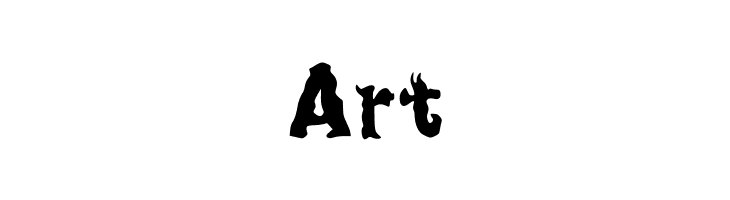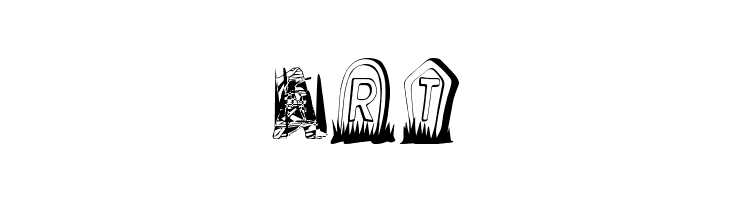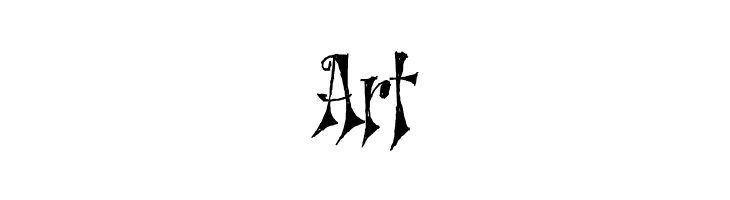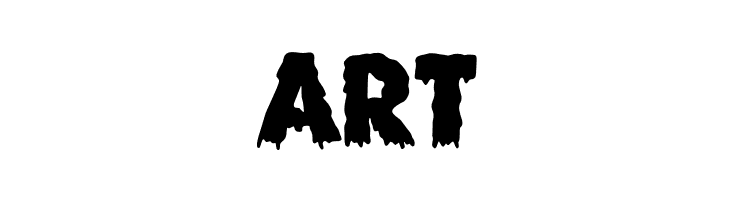
A bold, spooky-themed font with jagged edges and an eerie style.
A bold, dripping font perfect for horror-themed designs.
A bold, spooky font with jagged, irregular characters perfect for horror themes.
A spooky, mummy-themed font with textured uppercase and tombstone-encased lowercase letters.
A sharp, gothic-inspired font with dramatic serifs and a dark, edgy aesthetic.
A bold, gothic font with a dripping effect, perfect for horror themes.
A bold, dripping font with a horror-inspired aesthetic.
A bold, horror-themed font with dripping, eerie characters.
A bold, jagged font with a horror-inspired, hand-drawn style.
A playful, bone-themed decorative font perfect for spooky designs.